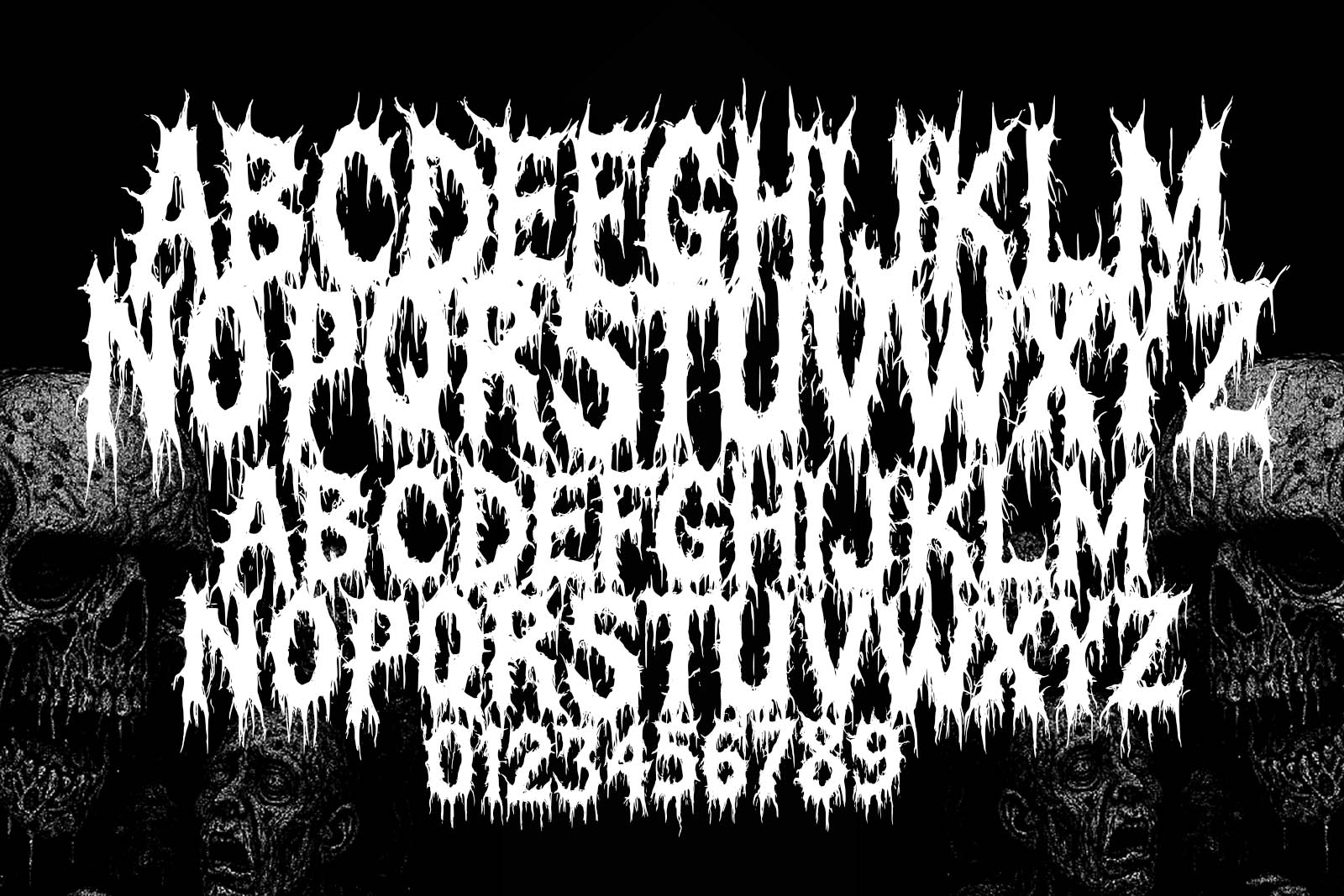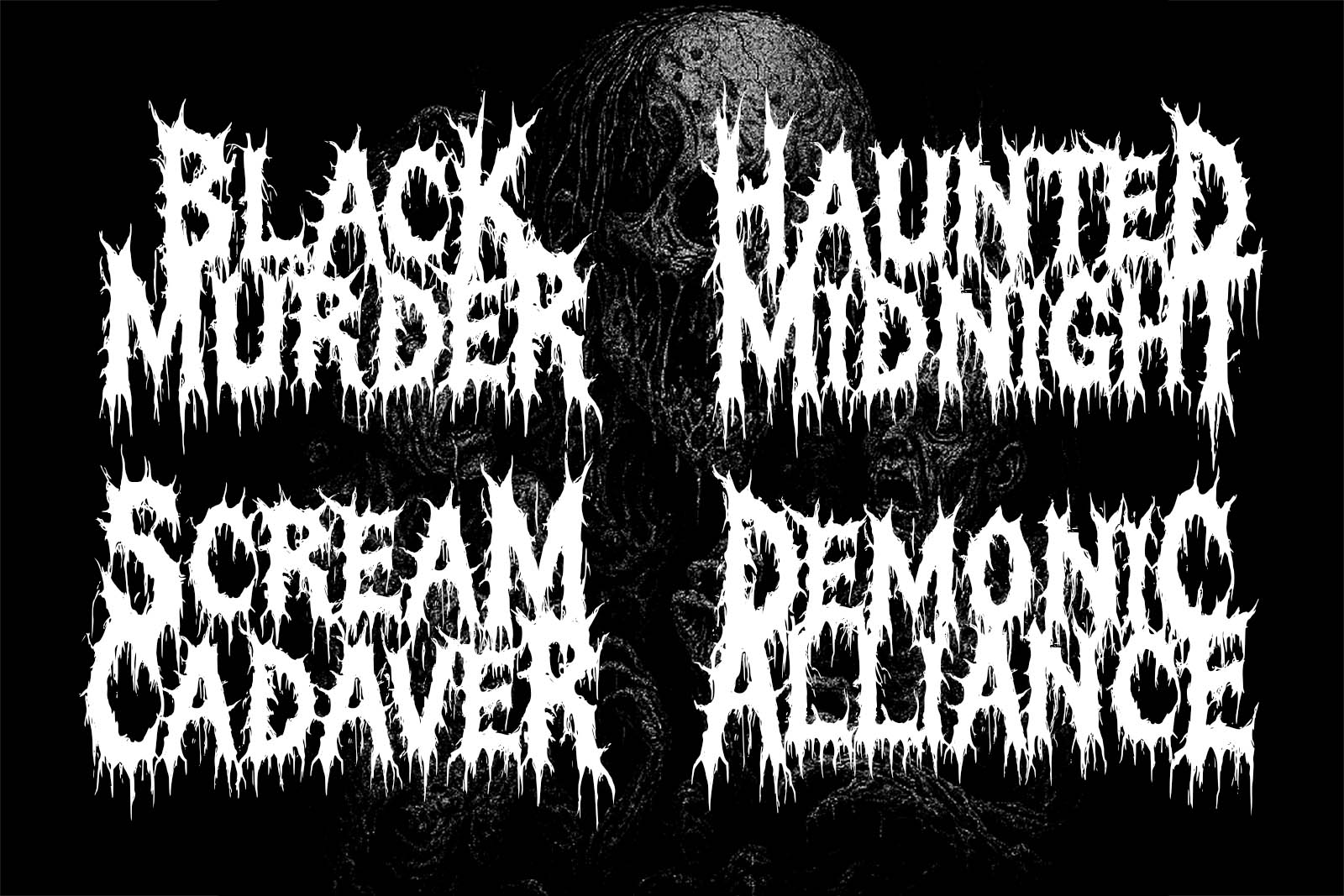
Horrible Sickness Brutal Blackmetal Font
Horrible Sickness is an insanely brutal black metal font that oozes terror, rage, and total sickness. Every letter looks like it's melting, bleeding, and rotting in agony—perfect for black metal bands, death metal merchandise, horror movies, or any project that needs an extreme visual punch.
Designed to shock and dominate, this typeface delivers maximum brutality with its chaotic letterforms and sick dripping textures. Whether you're designing an underground gig poster, a blackened death metal logo, or brutal horror apparel, Horrible Sickness brings raw darkness and total madness to your design.
This is not just a font — it’s a visual disease.
Perfect for:
• Black metal, death metal, and extreme music logos
• Album covers dripping with horror
• Occult or satanic merchandise
• Slasher film titles and scary poster art
• Dark clothing, streetwear, or tattoo branding